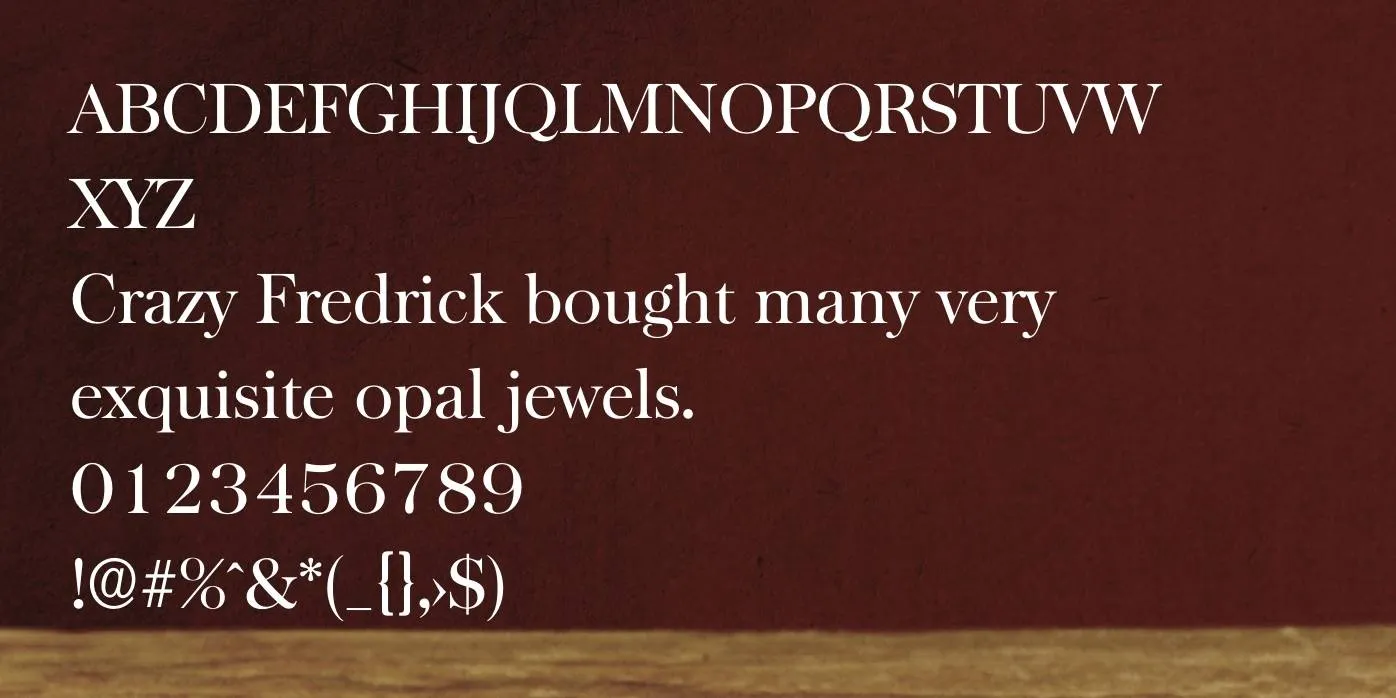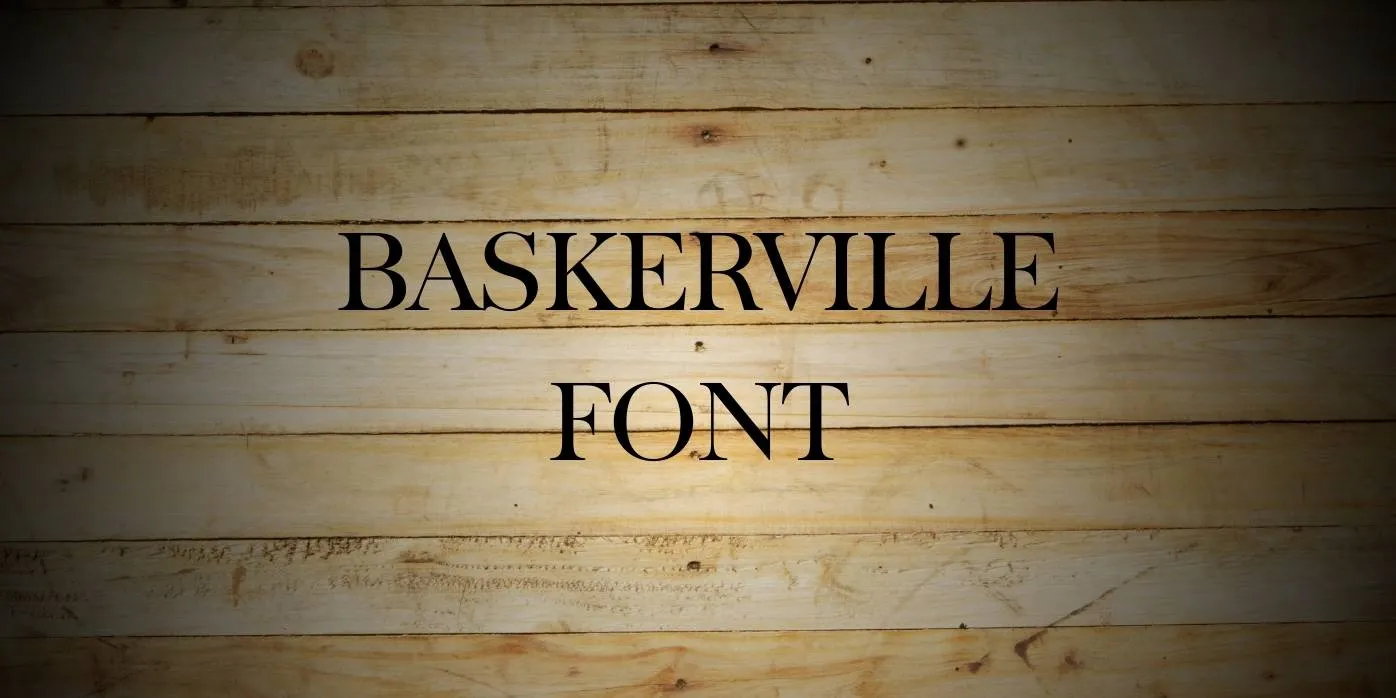
Baskerville Font
Baskerville Font is famous for its Bold and italic function. This typeface is utilized in Linux. This typeface has a second name known as Old face font. The designer of this typeface is John Baskerville.